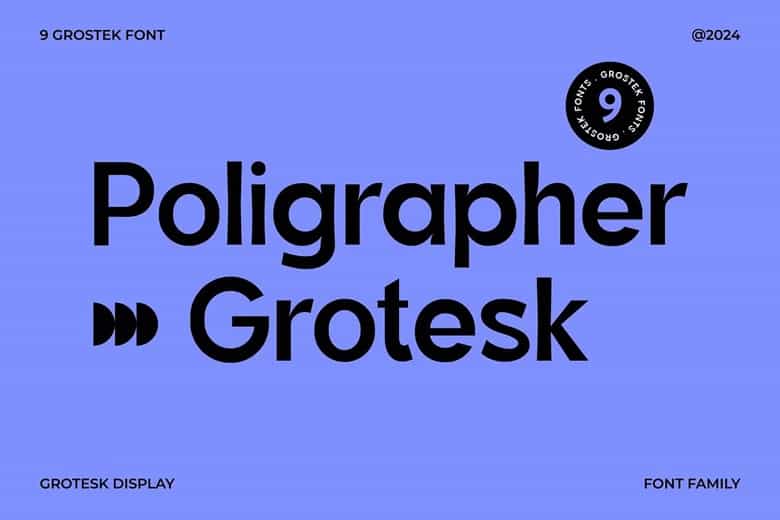
Poligrapher Grotesk is a new sans-serif font family from UICreative, which is modern, yet sophisticated in its design. This font is perfect for any kind of projects including invitations, logos, weddings, quotes, magazines or books, headers, branding and many more. Also, the fashion branding or editorial design has the elements of both genders, which is something that is common in fashion.